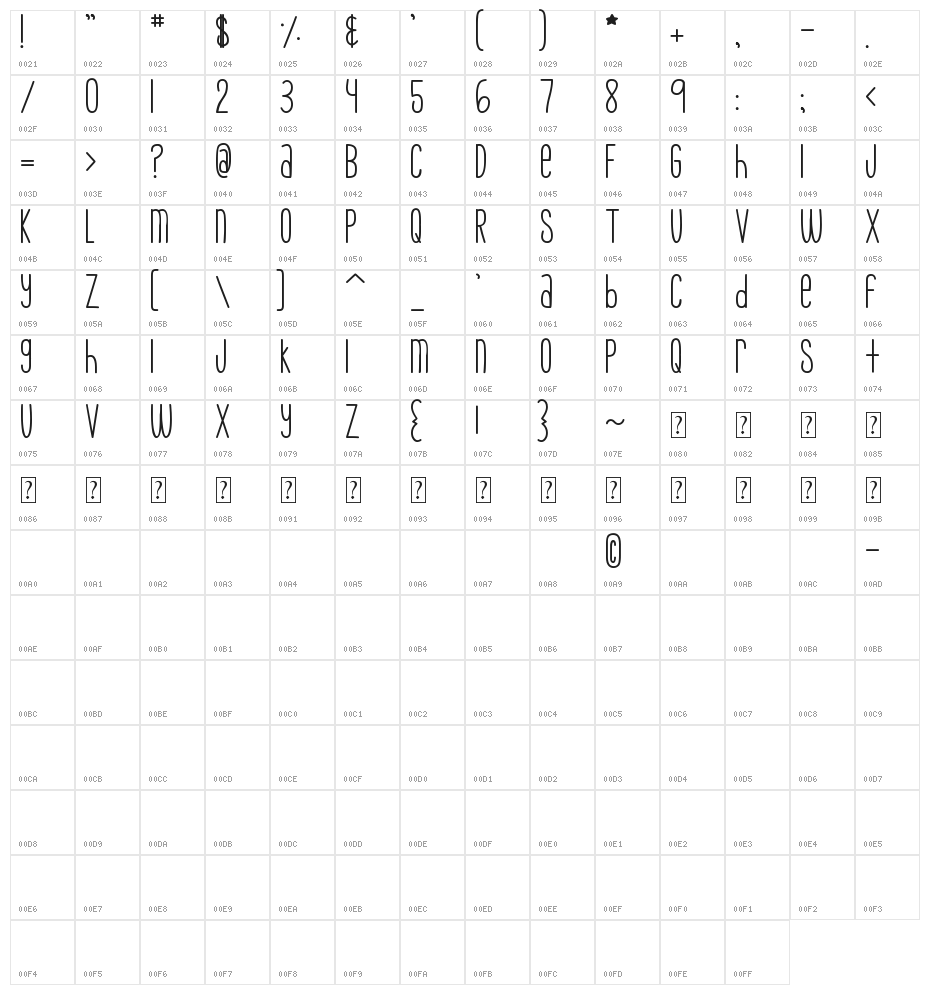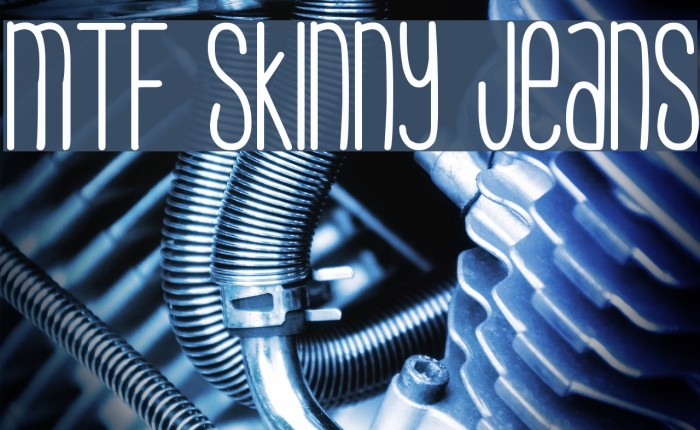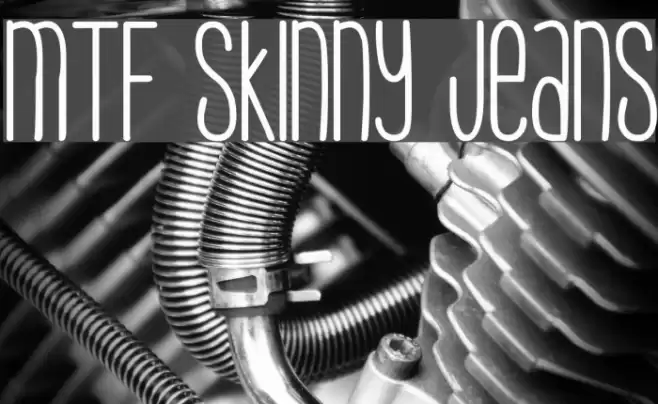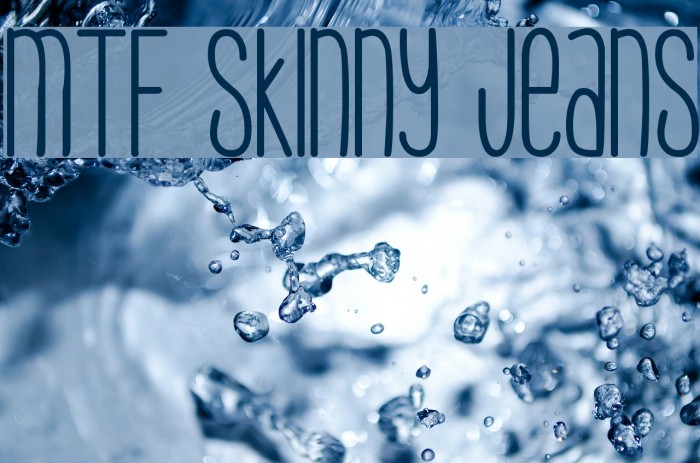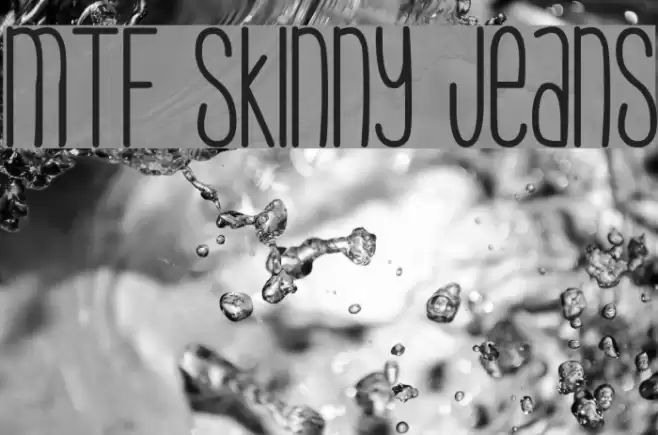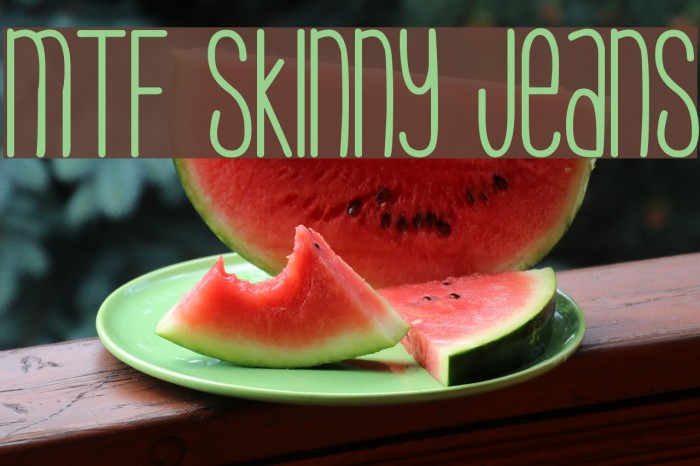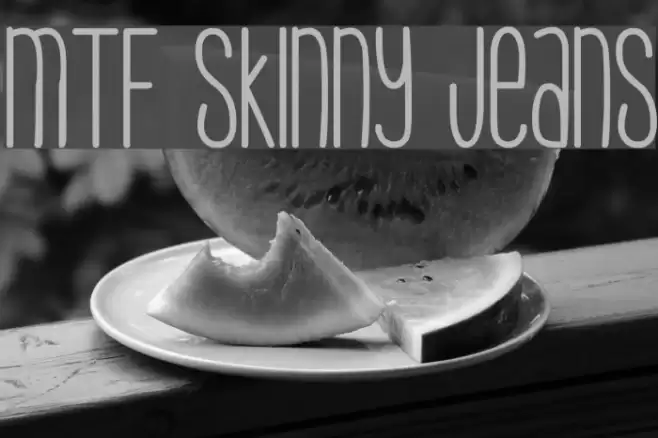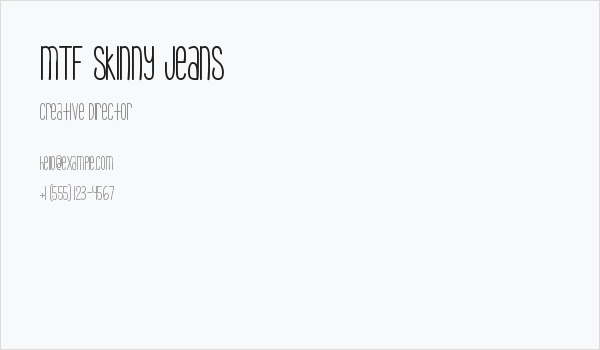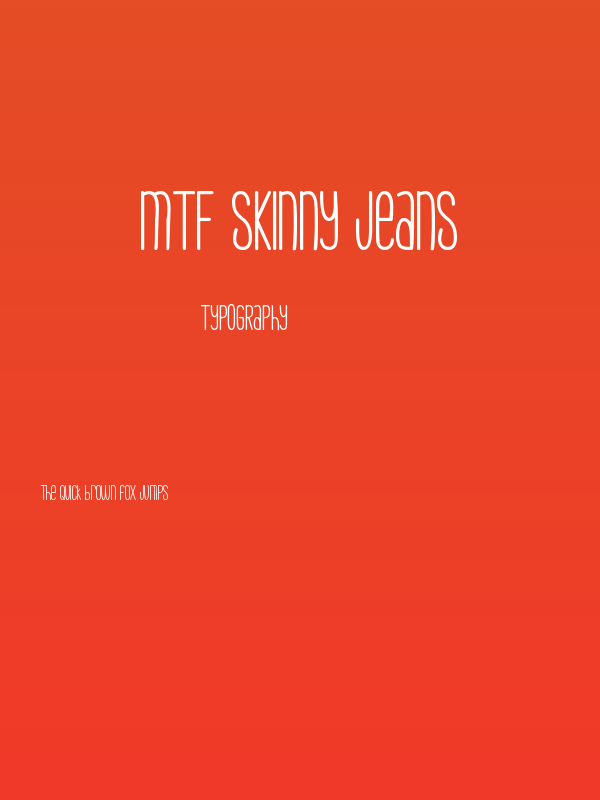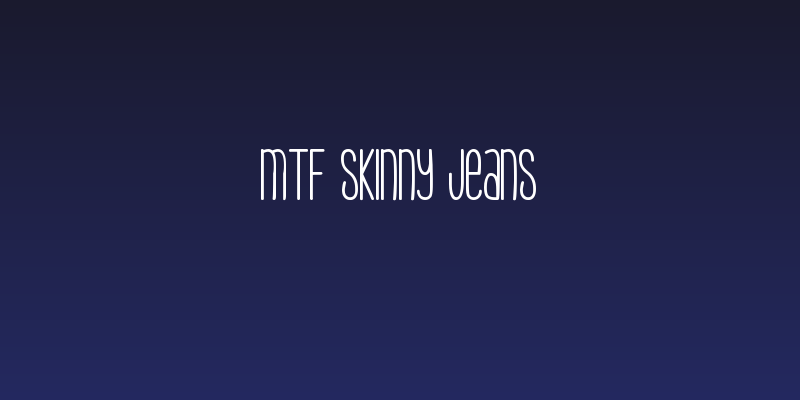
MTF Skinny Jeans Font
MTF Skinny Jeans Description
This font features a tall, narrow design with elongated characters that give it a sleek and modern appearance. The letters are uniformly thin, with consistent stroke widths that create a clean and minimalist look. The uppercase and lowercase letters maintain a cohesive style, with rounded edges and smooth curves. The numbers and special characters follow the same aesthetic, ensuring a harmonious overall design. This font's unique style makes it suitable for projects that require a contemporary and stylish touch.
| Proposed Projects | Ideal for fashion branding, modern posters, and minimalist graphic design projects. |